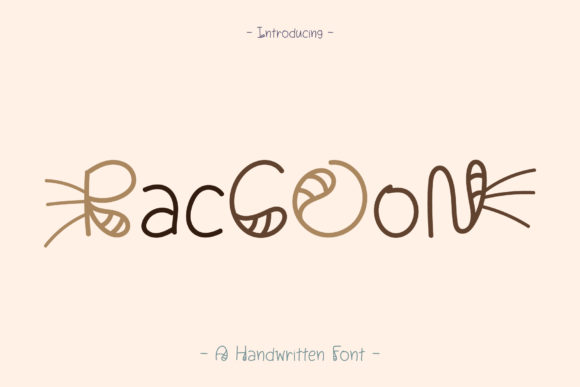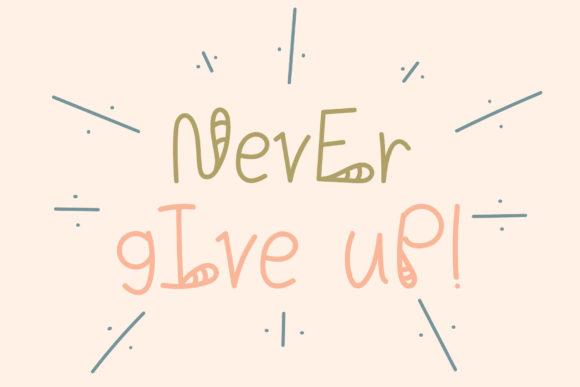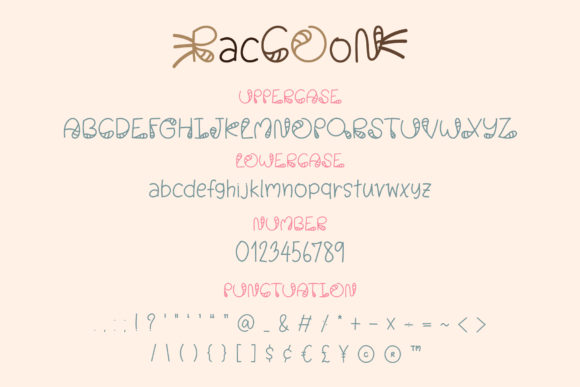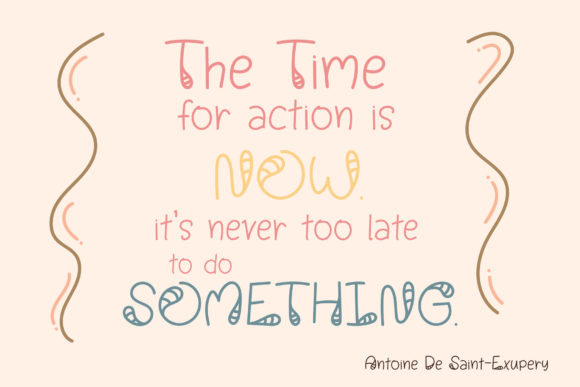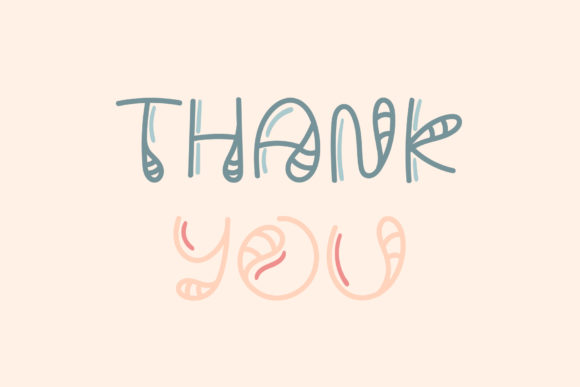
Raccoon Font
About Raccoon Font
Raccoon is a sweet and quirky handwritten font. Add this simple and friendly font to any creative idea you can think of, and notice how it makes it come alive!